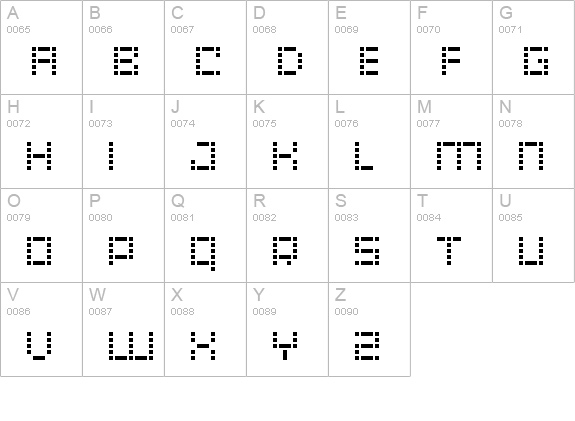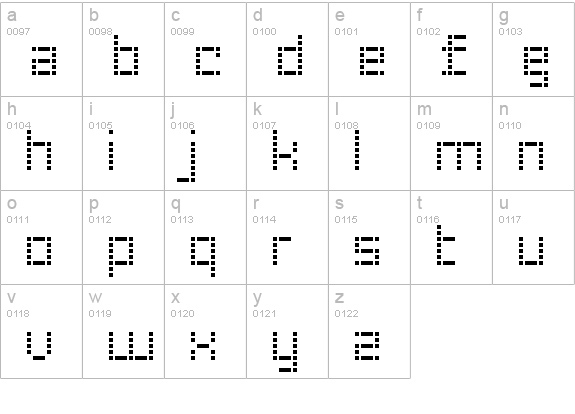
Introducing RiblahRegular font, a versatile and captivating typeface that is sure to make a lasting impression. With its clean lines and modern aesthetic, RiblahRegular is the perfect choice for a wide range of design projects. From branding and logos to website headers and print materials, this font brings a touch of elegance and professionalism to any creative endeavor. What sets RiblahRegular apart is not only its impeccable design, but also the fact that it is available for free. Yes, you read that right - you can download RiblahRegular font without spending a dime. This font is freely available to download at FontsMarket.com, making it accessible to designers, enthusiasts, and anyone in need of a high-quality typeface. RiblahRegular boasts a balanced blend of sophistication and readability, making it suitable for various purposes. Its legibility ensures that your message is conveyed clearly and effectively, while its unique charm adds a touch of personality to your designs. Whether you're designing a professional presentation or crafting a personal project, RiblahRegular is the perfect companion to bring your vision to life. With a wide range of characters, including uppercase and lowercase letters, numerals, punctuation marks, and special symbols, RiblahRegular provides you with all the tools you need to create stunning typography. Its versatility allows it to seamlessly adapt to different design styles and themes, ensuring that it remains a timeless choice for years to come. In addition to its aesthetic appeal and versatility, RiblahRegular also offers ease of use. The font is compatible with various design software, allowing you to effortlessly incorporate it into your workflow. Whether you're a seasoned designer or just starting out, RiblahRegular's user-friendly nature ensures a smooth and enjoyable design experience. So why wait? Embrace the beauty and functionality of RiblahRegular font today. Head over to FontsMarket.com and download it for free. Let RiblahRegular be the perfect addition to your font collection, providing you with endless possibilities and creative inspiration.